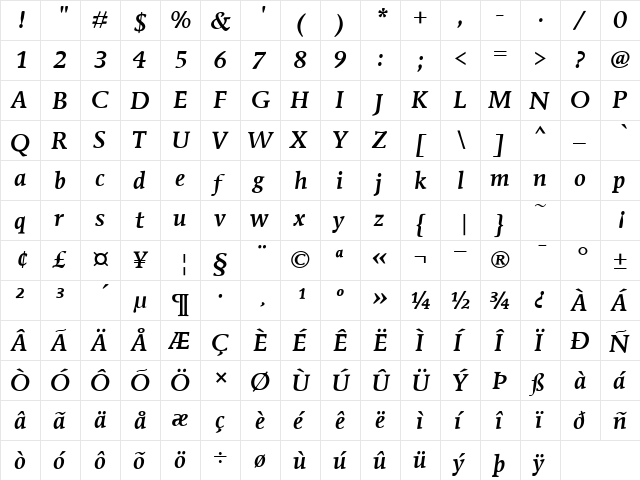
MendozaITCMedium RomanItalic
Design Context for MendozaITCMedium Typeface
MendozaITCMedium offers clean, dependable letterforms without strong stylistic allegiance, making it a practical choice for designers who need flexibility. The dynamic lean of this cut emphasises speed and emphasis in any layout.
Pro Tip: Try MendozaITCMedium for annotation and caption copy alongside an upright companion — the contrast in angle creates a dynamic but ordered typographic system.